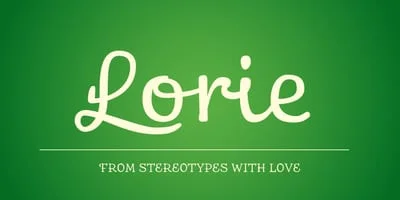
St Lorie Font is ideal for romantic wedding planners, elegant stationery designers, refined beauty salons, sophisticated bridal boutiques, graceful dance studios, feminine lifestyle brands, and charming personal coaching services. This graceful typeface embodies feminine elegance and romantic sophistication, bringing gentle refinement and timeless beauty to any design project celebrating women's grace and romantic celebrations.
What makes St Lorie Font exciting is its exquisite combination of romantic elegance and feminine sophistication that perfectly captures the essence of timeless beauty and graceful femininity. The font features flowing letterforms with delicate curves and refined proportions that evoke both the elegance of handwritten love letters and the sophistication of bridal calligraphy. Its enchanting character appeals to romantic audiences while maintaining excellent readability for both wedding stationery and feminine brand applications.
The St Lorie Font family includes multiple weights from light to bold, complete with elegant script variations and romantic ornamental elements. The character set features graceful ligatures, feminine symbols, romantic alternates, and sophisticated decorative accents that enhance the font's elegant appeal. Advanced OpenType features provide creative flexibility for international wedding brands and multilingual feminine lifestyle applications.
Whether you're designing romantic wedding brands, creating elegant stationery materials, or developing feminine lifestyle content, St Lorie Font provides exceptional grace and versatility. This enchanting typeface transforms ordinary text into beautiful romantic experiences that celebrate feminine elegance while establishing memorable brand recognition in competitive wedding planning and feminine lifestyle marketplaces.